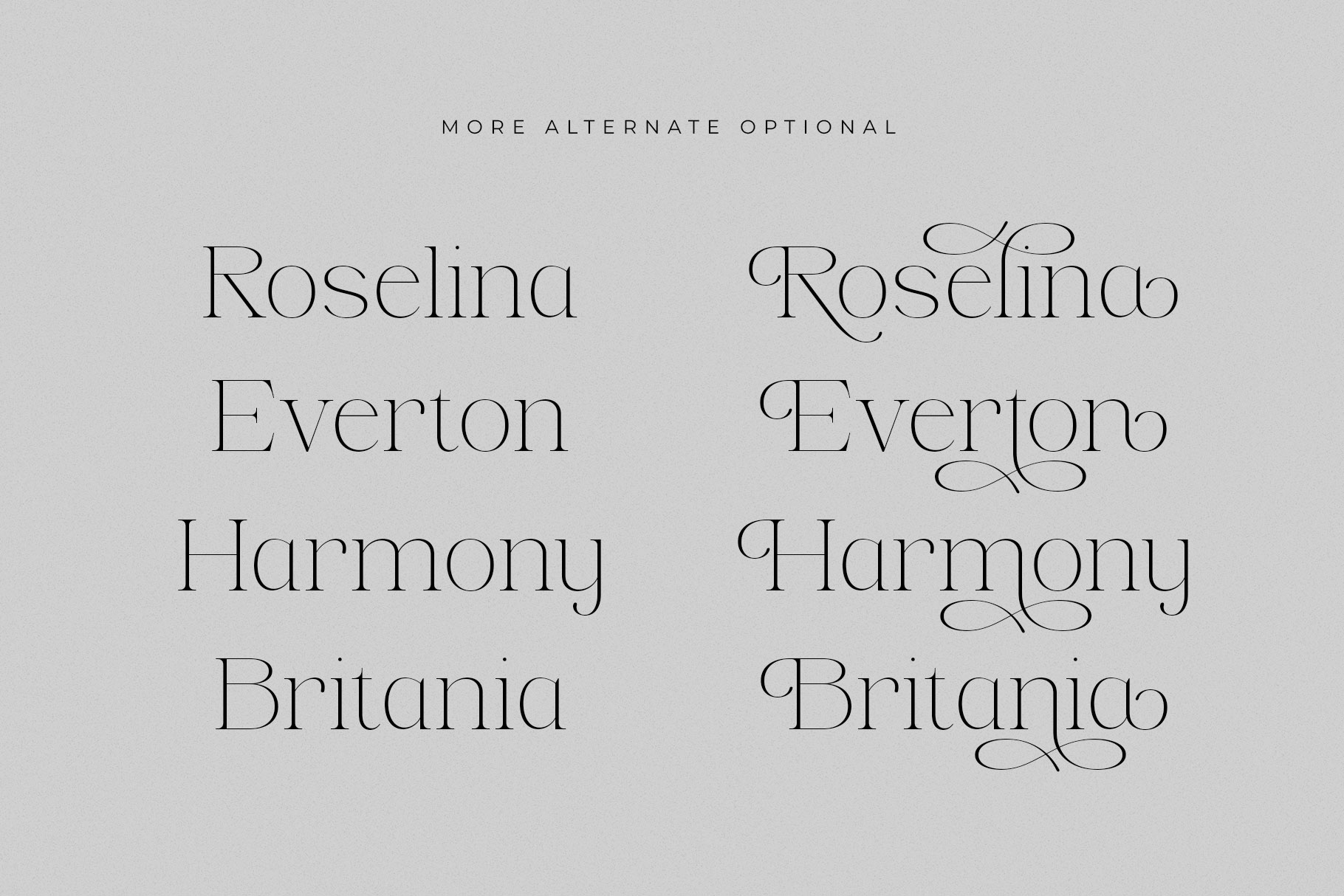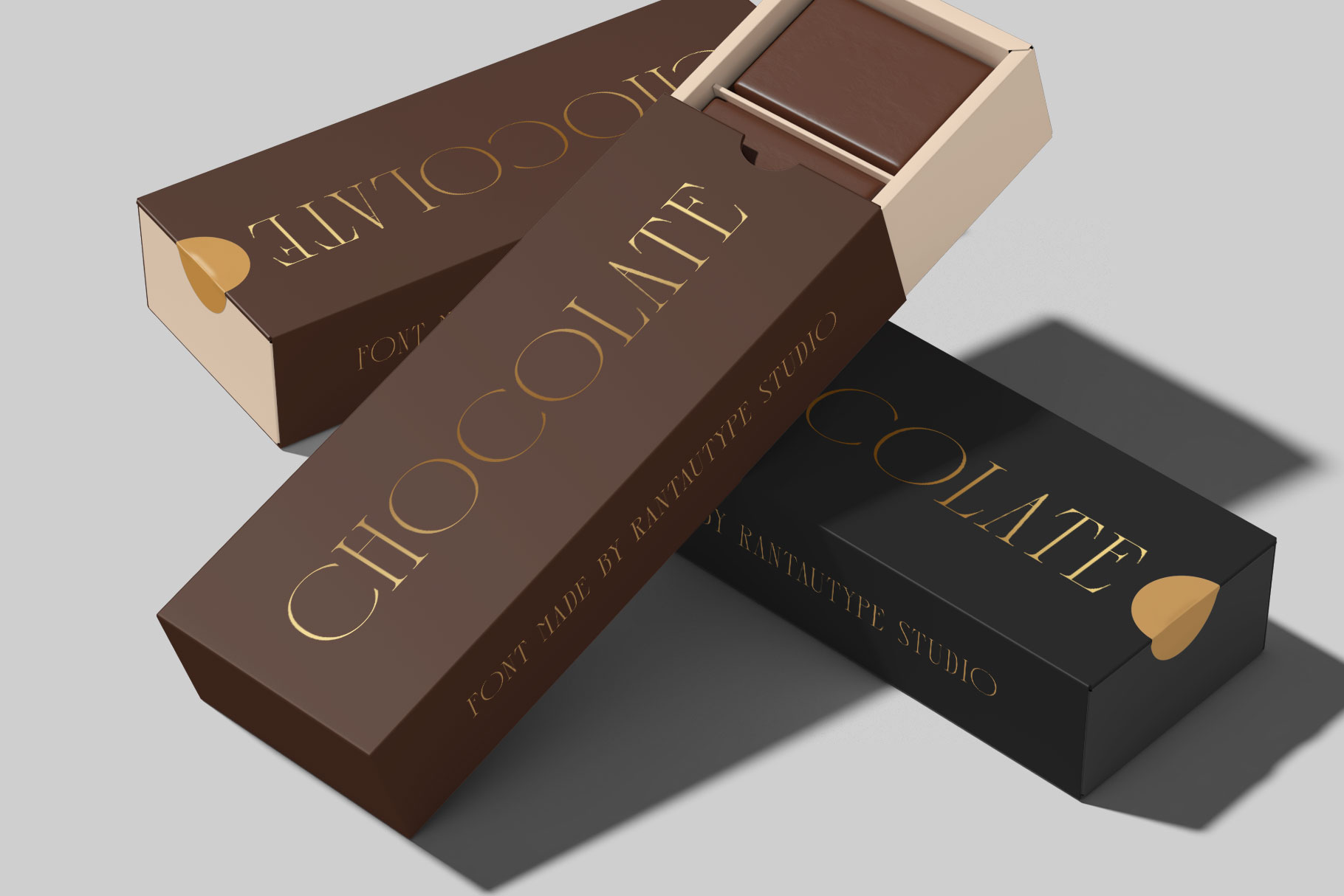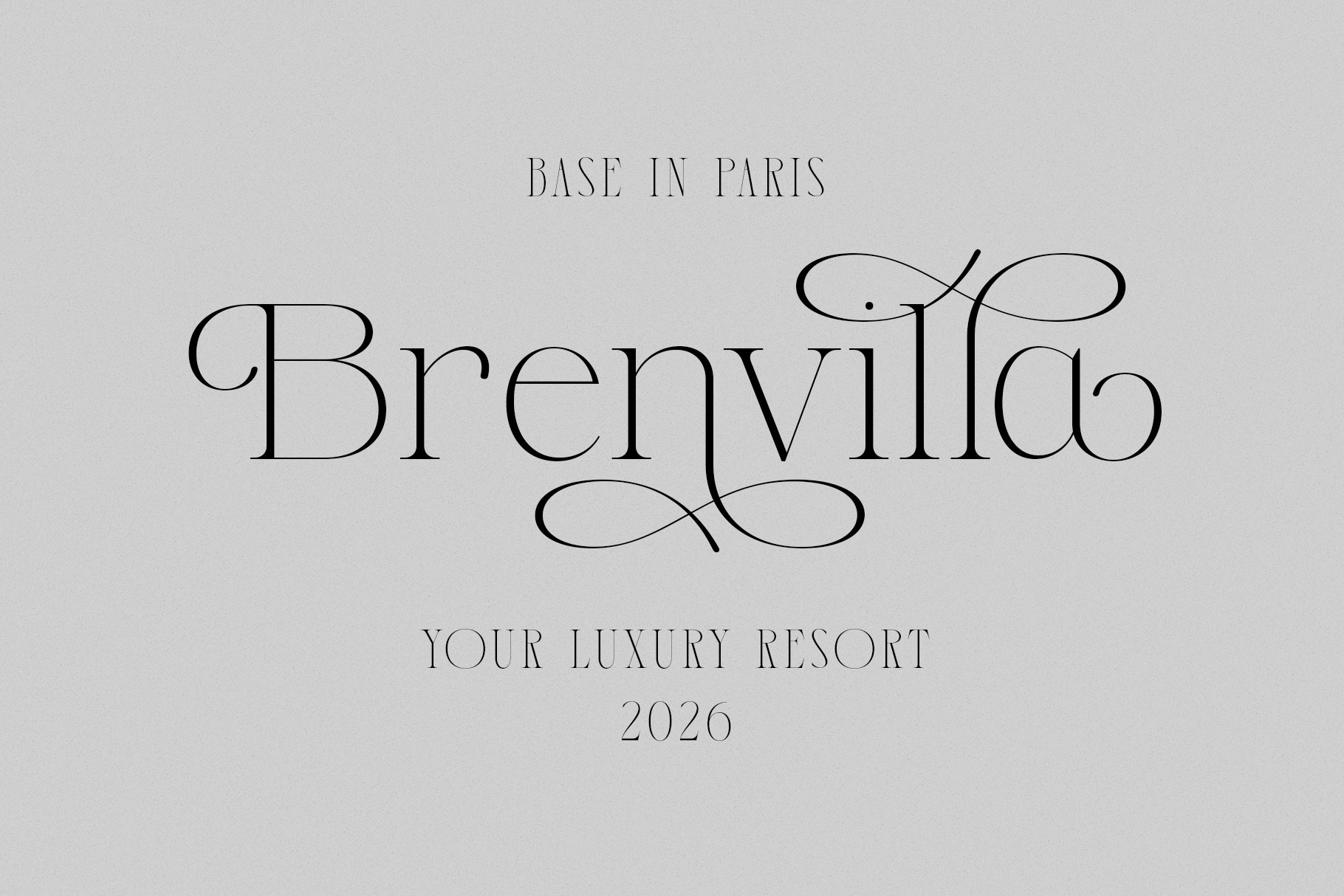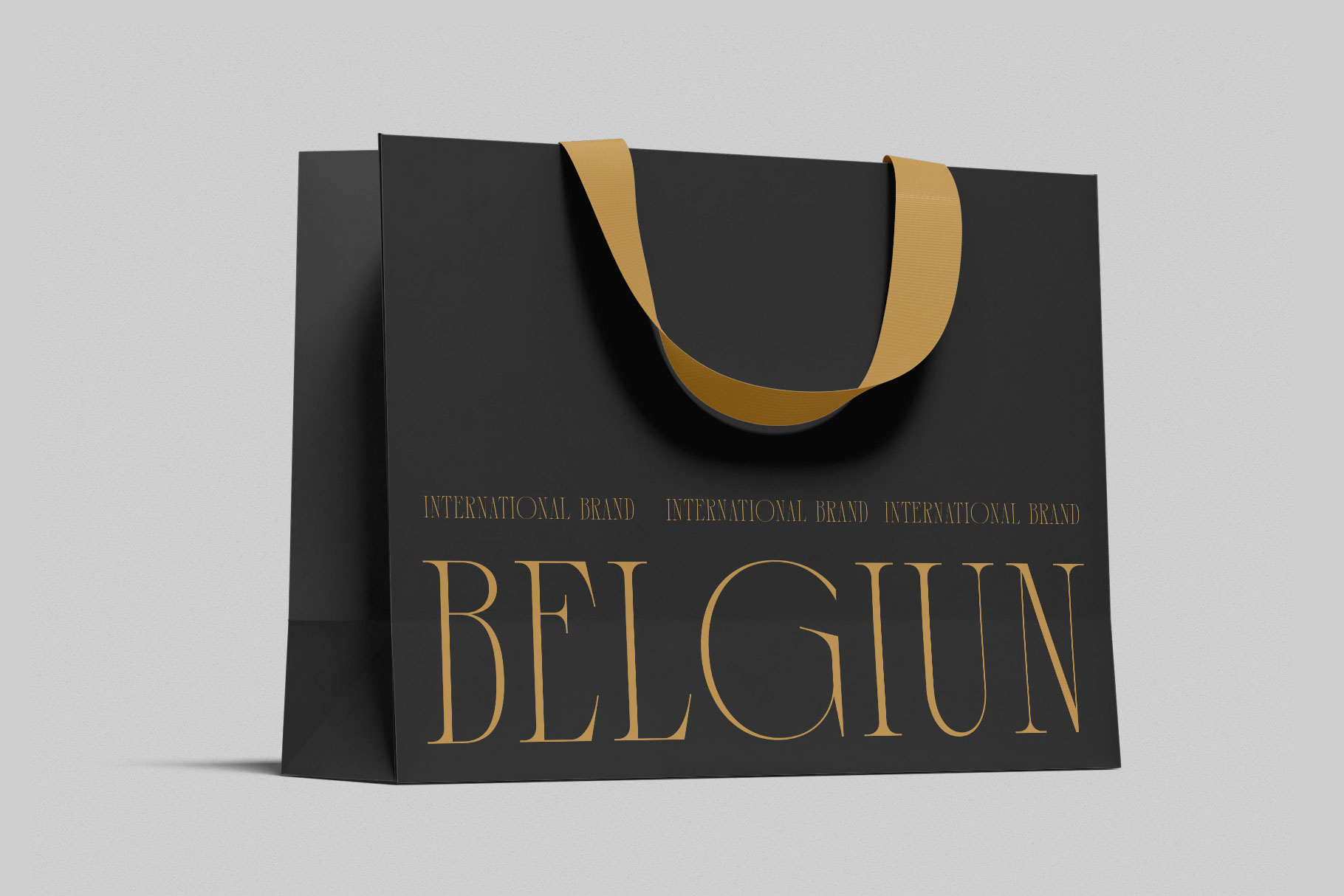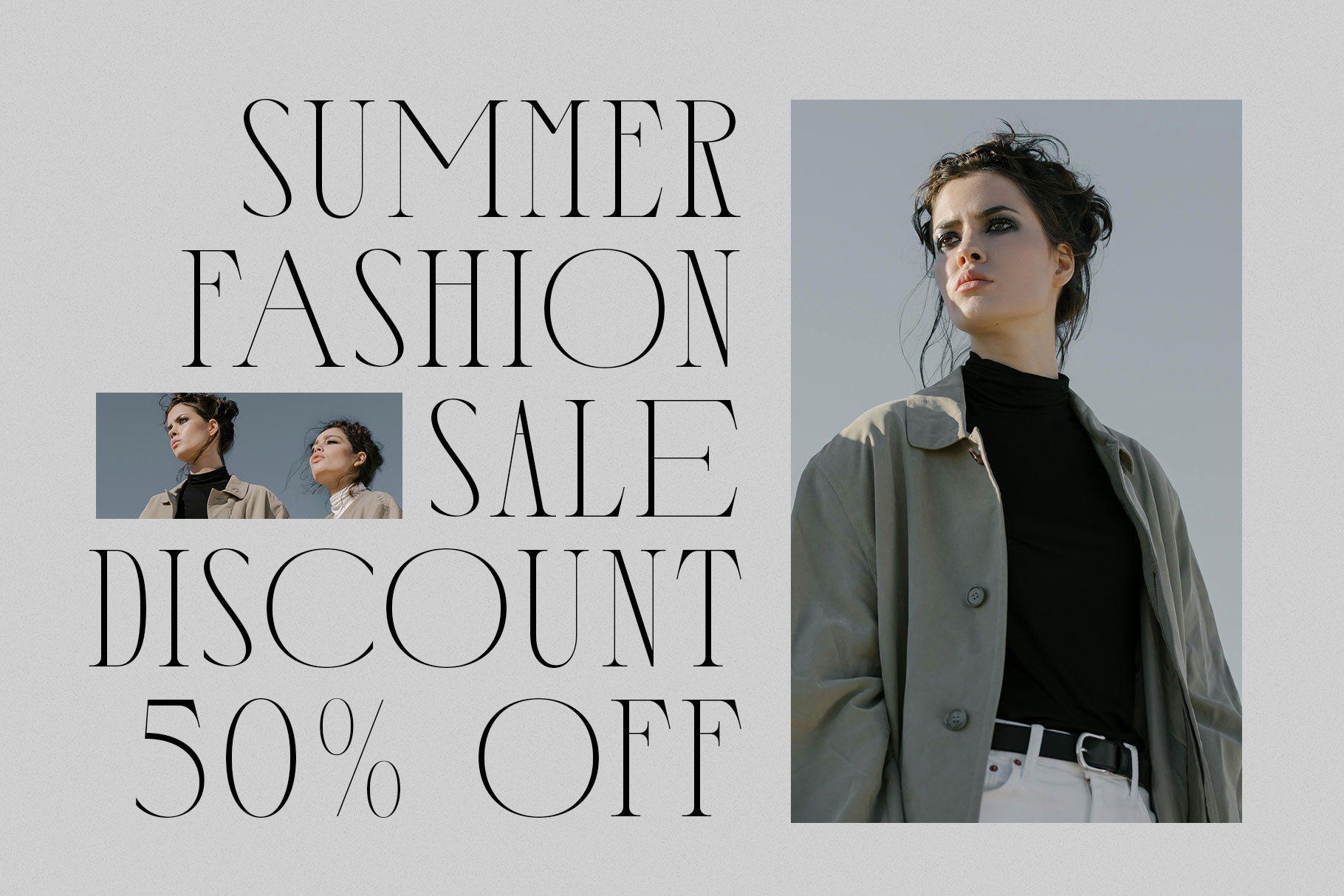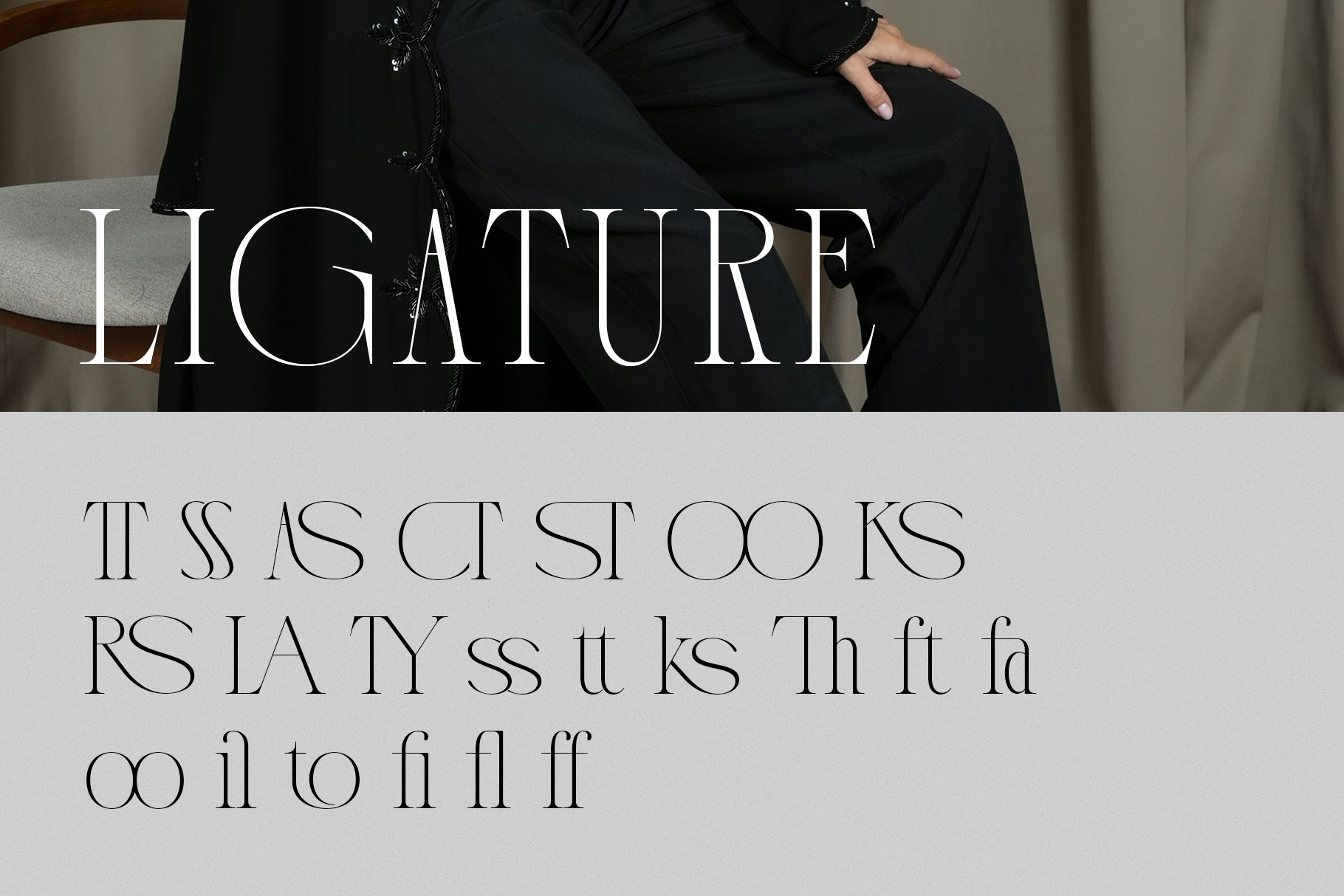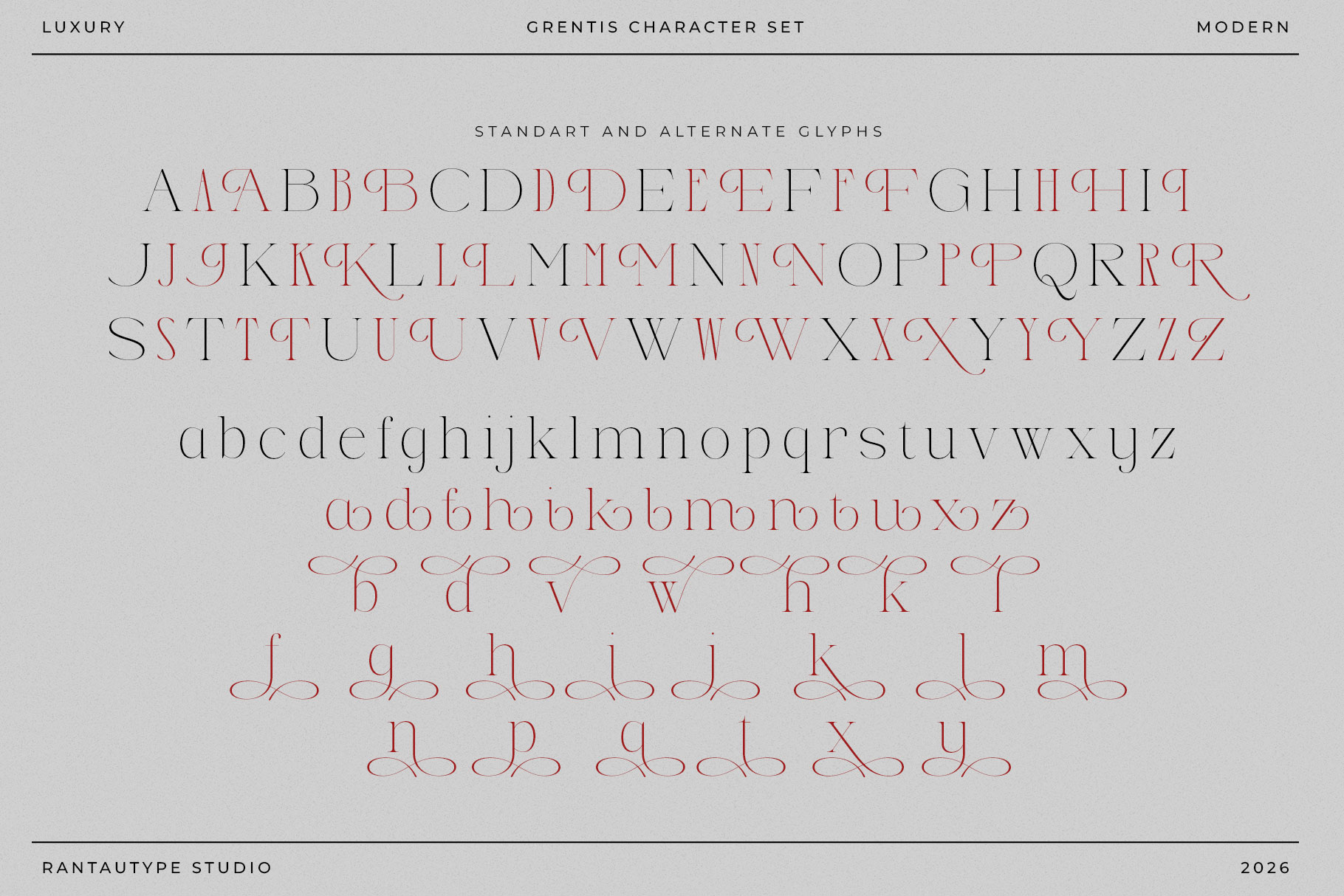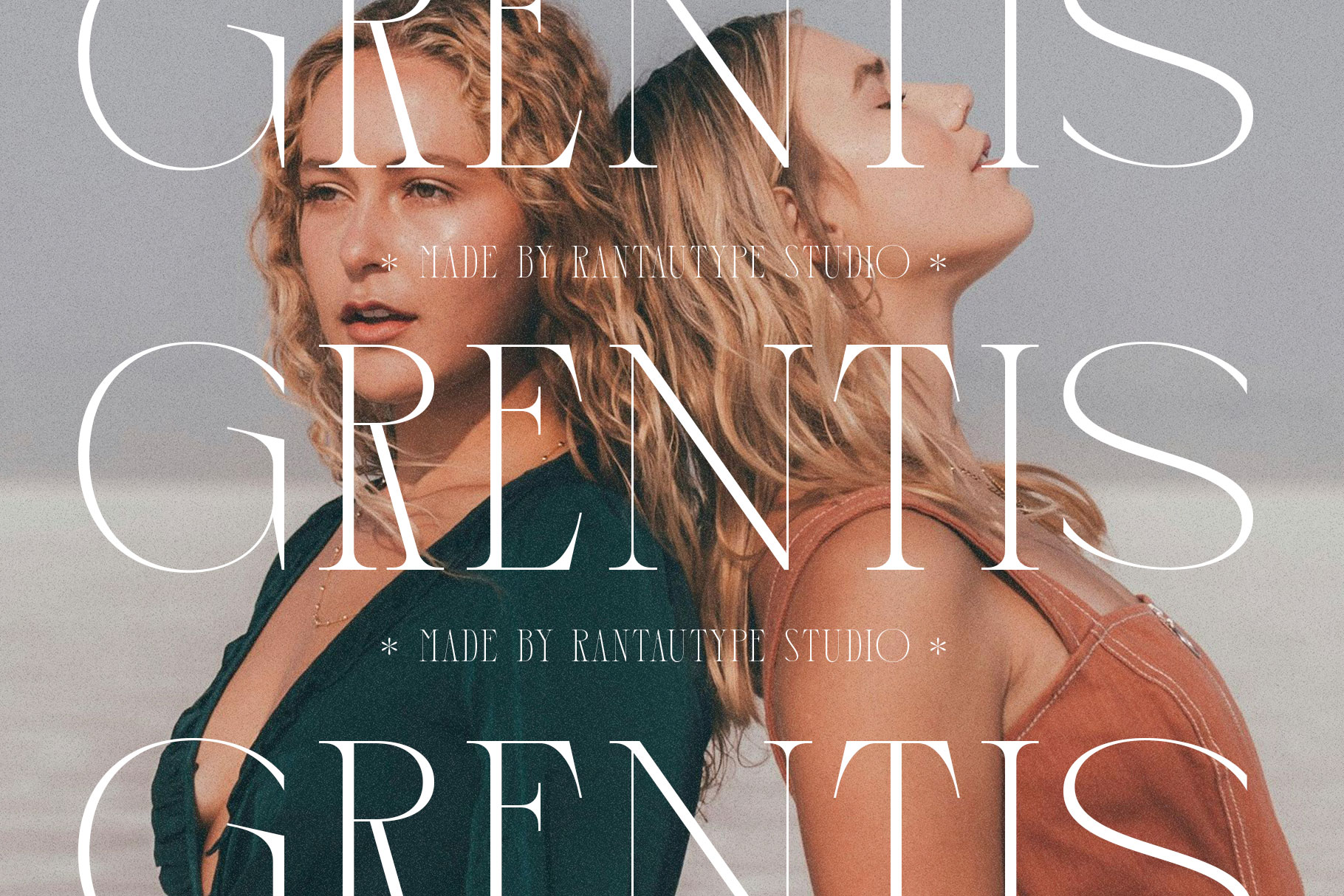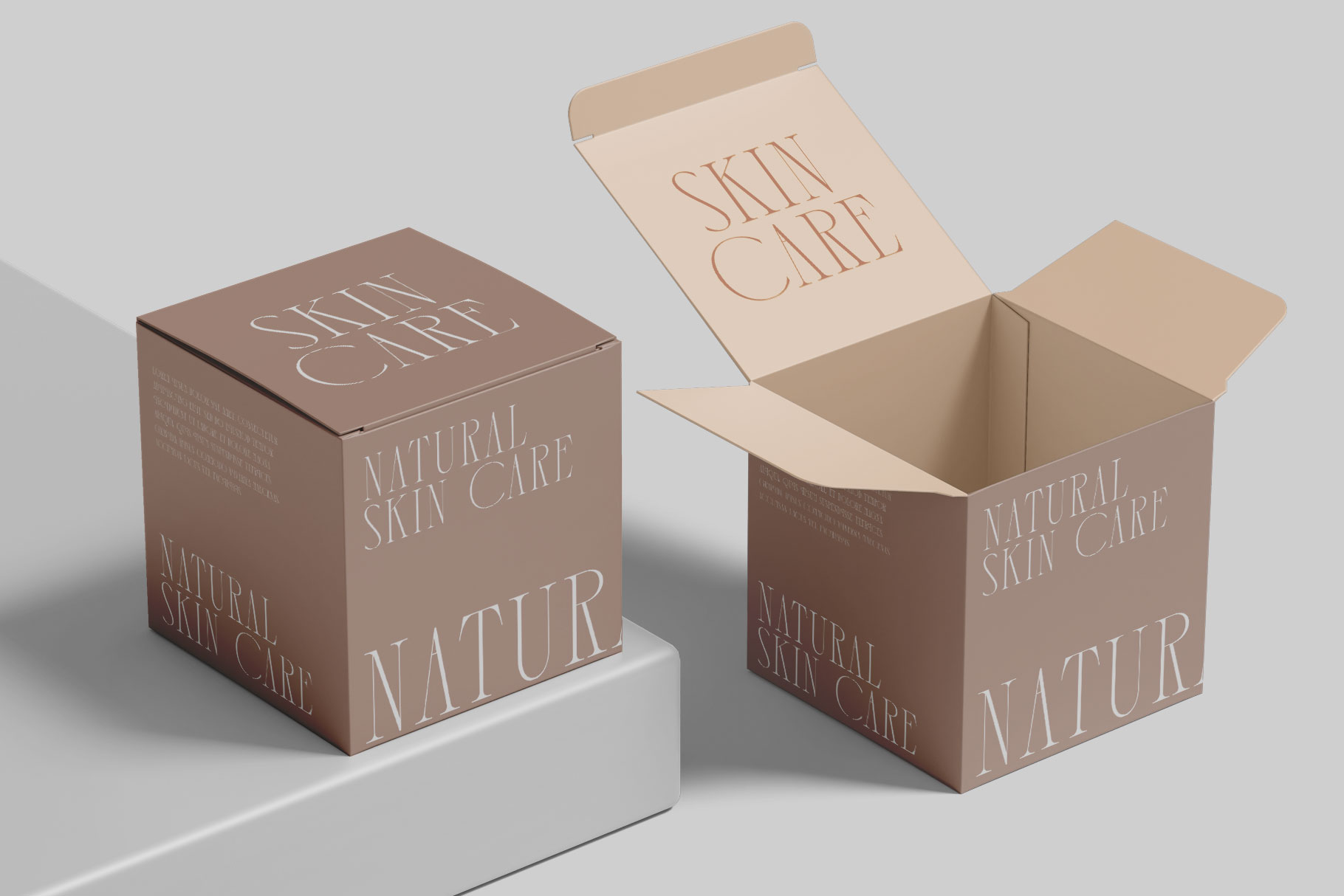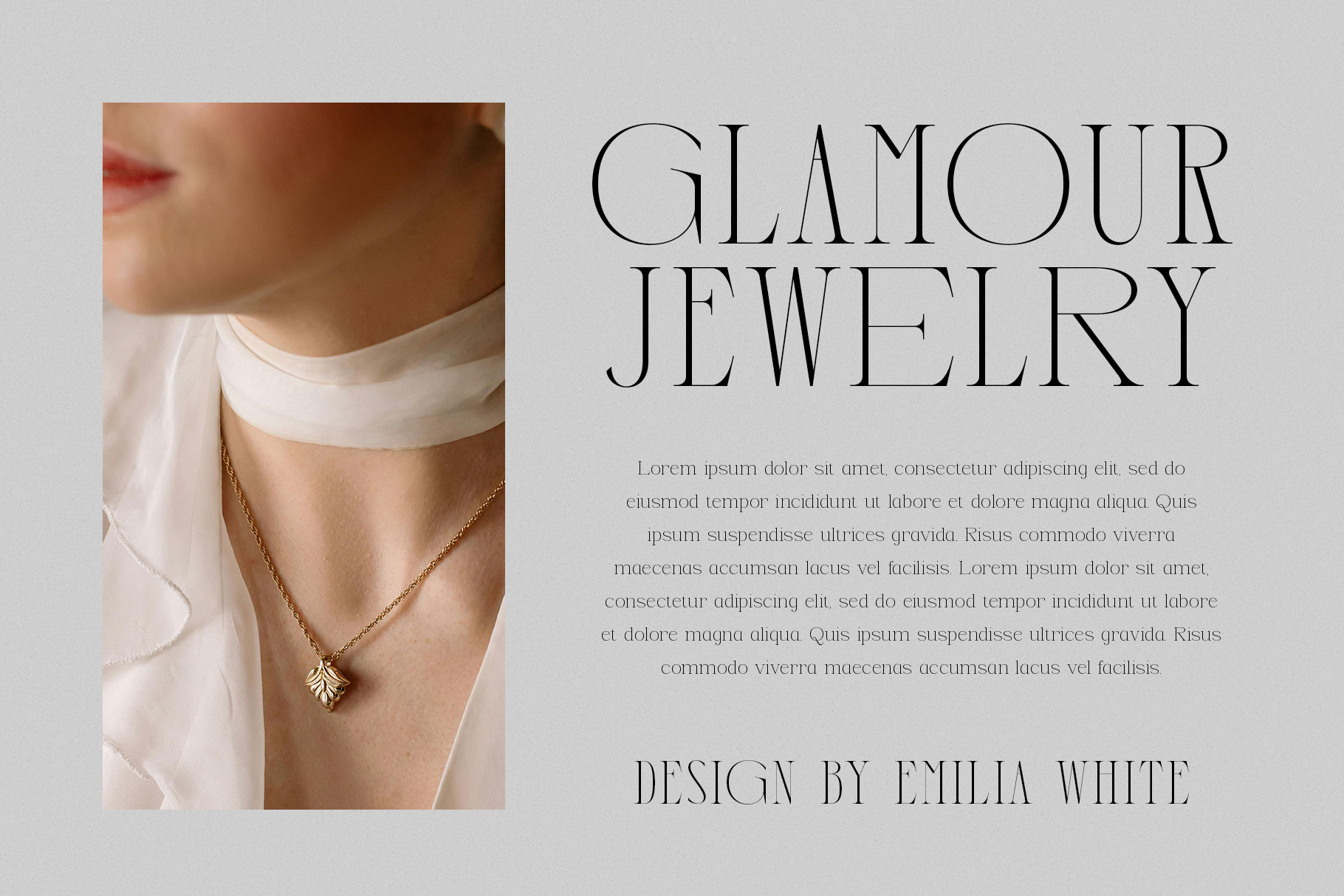
Grentis Luxury Branding Font
Grentis is luxury serif font with a tall, minimalist silhouette is the embodiment of quiet confidence and refined taste inspiration from high-fashion editorials and premium packaging. Grentis come with stylish alternate and more you can mix and max to create you design stand out.
Grentis bring professional character to make your design stand out!! Grentis is a perfectly choice for any creative endeavor, creating, modern, lifestyle design such as logotype, title, cover, branding, invitations, wedding designs, display and magazine, social media posts, advertisements, printed quotes, product packaging, corporate brand, product designs, labels, photography, watermarks, special events and any other project with luxury touch.